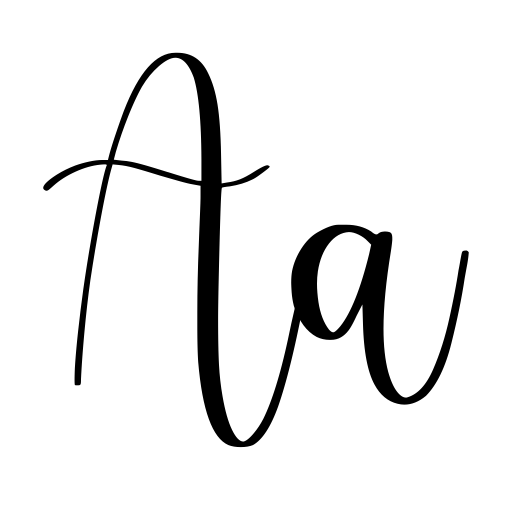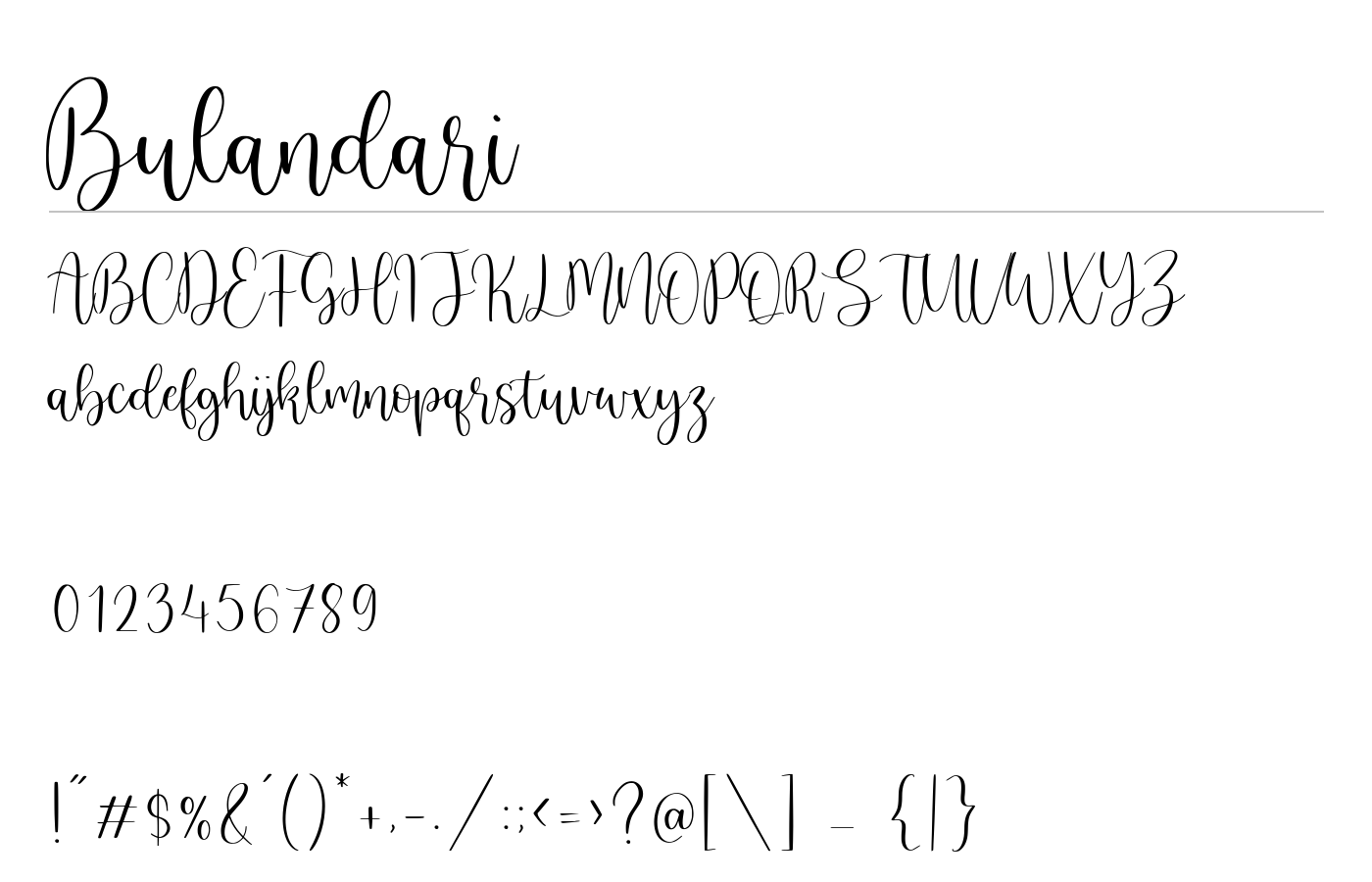
Bulandari is a delicate, modern script font with elegant, flowing letterforms that convey a handwritten, feminine touch. Its thin strokes and graceful curves make it ideal for invitations, branding, and creative projects that seek a sophisticated yet approachable style. This font works best in large sizes where its intricate details and airy feel can shine.
Bulandari Font
About Bulandari Font